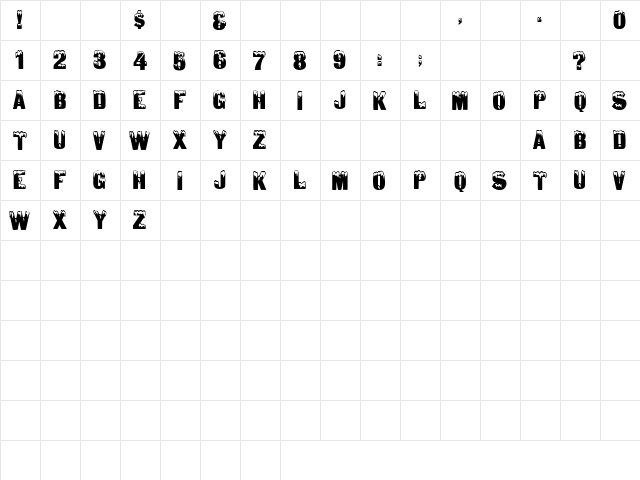
Diamond 2 Regular
Design Context for Diamond 2 Typeface
Diamond 2 is a composed and adaptable typeface that performs quietly and consistently across a wide range of design contexts.